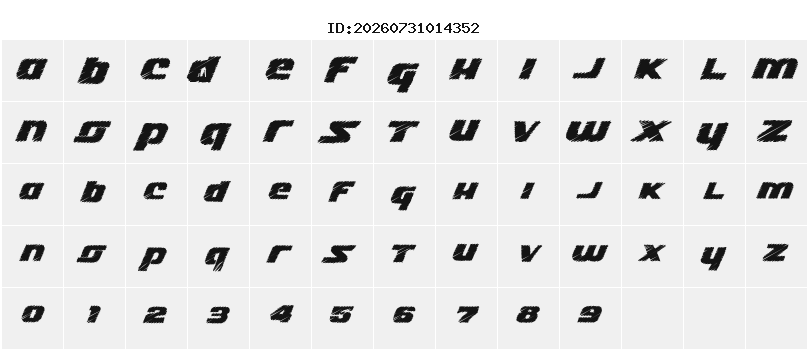
• Font Name: Lizzie
• Full Font Name: Lizzie
Lizzie.ttf is a modern, elegant sans-serif font designed for ultimate readability and visual harmony. Perfect for branding, headlines, web design, and print materials.